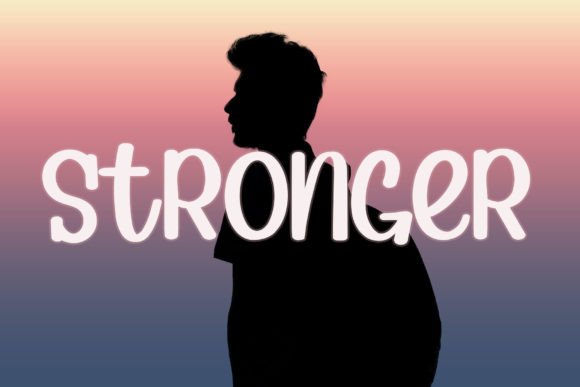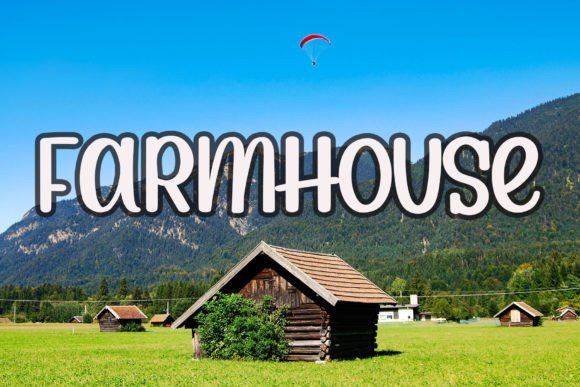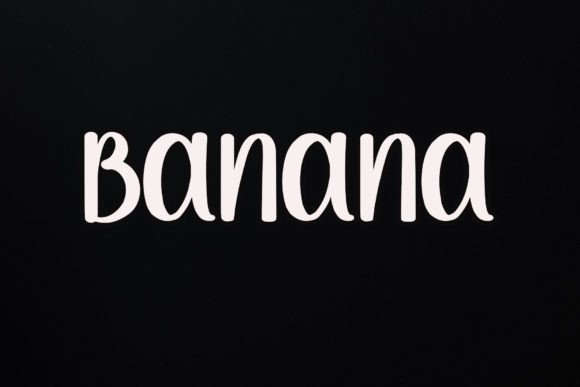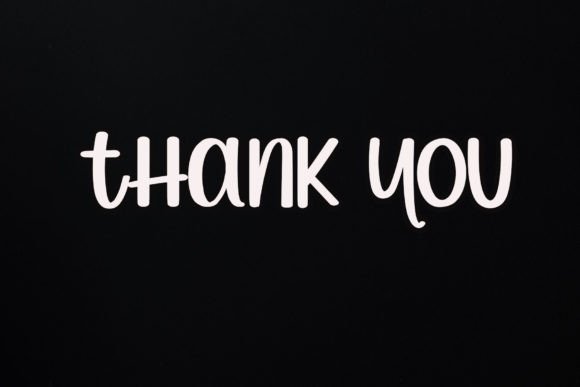
The Power of Handwritten Charm
Have you ever been stuck on a design project, struggling to find the perfect font to bring your vision to life? You’re not alone. We’ve all been there – staring at a blank canvas, searching for the perfect combination of style and elegance to make our ideas shine.
Enter Beautiful Font, a casual and flowing handwritten font that’s been designed to add a touch of personality to any design. With its beautiful and well-balanced characters, Beautiful Font is the perfect addition to your most creative ideas. Whether you’re working on a branding project, a social media campaign, or a personal blog, this versatile font is sure to make your designs stand out.
Beautiful Font Key Features
- Unique Character Set: Includes over 500 unique characters, including special symbols, ligatures, and swashes, to add a touch of elegance to any design.
Designer Review: Beautiful Font
I recently had the chance to work with the “Beautiful Font” and I’m excited to share my honest thoughts.
- Unique and elegant design: The font’s subtle curves and rounded edges give it a sophisticated feel that’s perfect for luxury brands and high-end designs.
- Excellent legibility: Despite its elegant design, the font is surprisingly easy to read, making it a great choice for both print and digital media.
- Good range of weights: The font comes in a variety of weights, from light to bold, giving designers plenty of options for customizing their designs.
- Limited language support: Unfortunately, the font doesn’t support a wide range of languages, which may limit its use in international designs.
- Not ideal for small text: The font’s elegant design can make it difficult to read at small sizes, which may not be suitable for certain design applications.
Overall, I think the “Beautiful Font” is a great addition to any designer’s toolkit. While it has some limitations, its unique design and excellent legibility make it a great choice for a wide range of projects. With a bit of careful planning, designers can work around its limitations and create stunning designs that showcase the font’s best features.
Tips for Getting the Most Out of Beautiful Font
Use Beautiful Font to add a touch of elegance to your designs.
Experiment with different font sizes and colors to create a unique look.
Pair Beautiful Font with other elegant fonts to create a sophisticated design.
Use Beautiful Font for:
Business cards and marketing materials.
Book covers and publishing materials.
Alternatives to Beautiful Font for Designers
Playfair Display is an elegant and luxurious font ideal for high-end branding, luxury goods, and fine art. It features intricate details and ornate flourishes, making it perfect for creating a sense of sophistication and refinement. Unlike Beautiful Font, Playfair Display has a more classic and vintage feel, making it suitable for traditional and heritage-based designs.
Great Vibes is a modern and stylish font that is perfect for creating a sense of energy and playfulness. It features a unique blend of rounded and geometric shapes, making it ideal for designs that require a balance of modernity and approachability. Unlike Beautiful Font, Great Vibes is more casual and relaxed, making it suitable for creative and artistic projects.